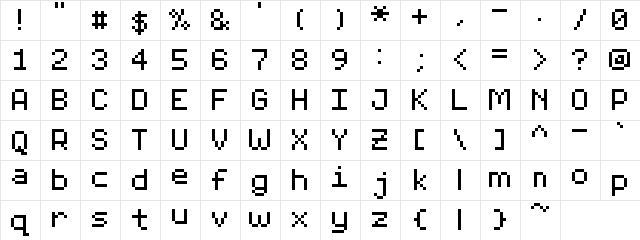
JumpNarrow Regular
Design Context for JumpNarrow Typeface
JumpNarrow offers clean, dependable letterforms without strong stylistic allegiance, making it a practical choice for designers who need flexibility. The condensed width makes it efficient for tight spaces without sacrificing legibility.
Pro Tip: Use JumpNarrow in both headline and body roles to test its range before committing to a single application.